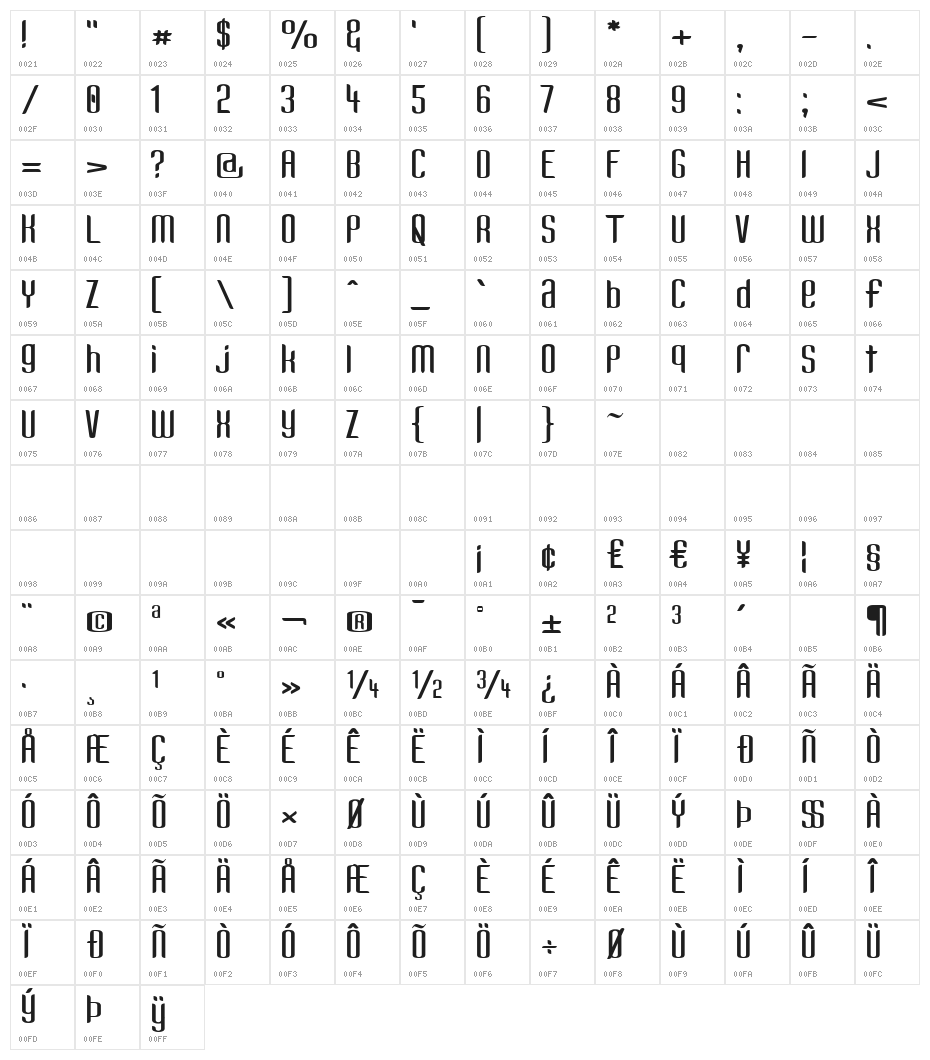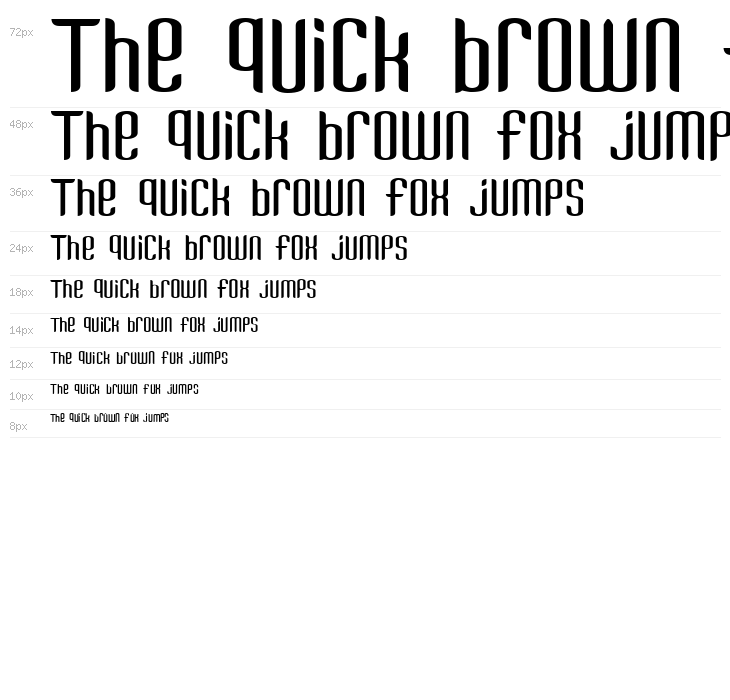
Kandide Unicase Wide Font
Kandide Unicase Wide Description
This font features a modern, geometric design with a unicase style, where uppercase and lowercase letters share similar forms. The characters are elongated and have a consistent width, giving a uniform appearance. The strokes are rounded and smooth, contributing to a sleek and contemporary look. The numerals and special characters maintain the same stylistic approach, ensuring cohesion across all elements. This font's wide spacing and clean lines make it highly legible and suitable for various design applications.